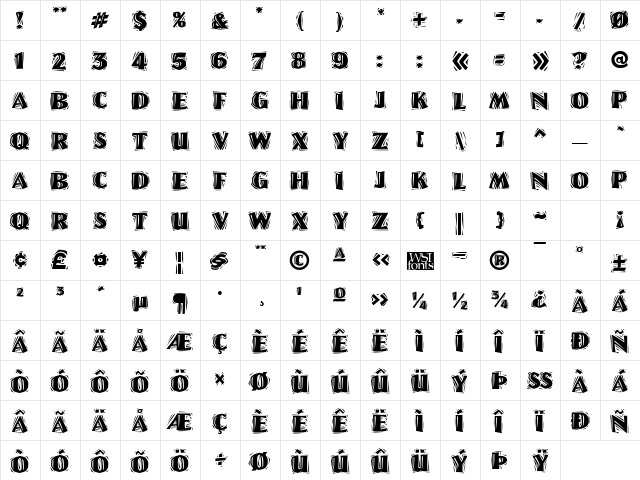
LinoLetterCutRagged Regular
Design Context for LinoLetterCutRagged
LinoLetterCutRagged is a composed and adaptable typeface that performs quietly and consistently across a wide range of design contexts.
Pro Tip: Use LinoLetterCutRagged in both headline and body roles to test its range before committing to a single application.